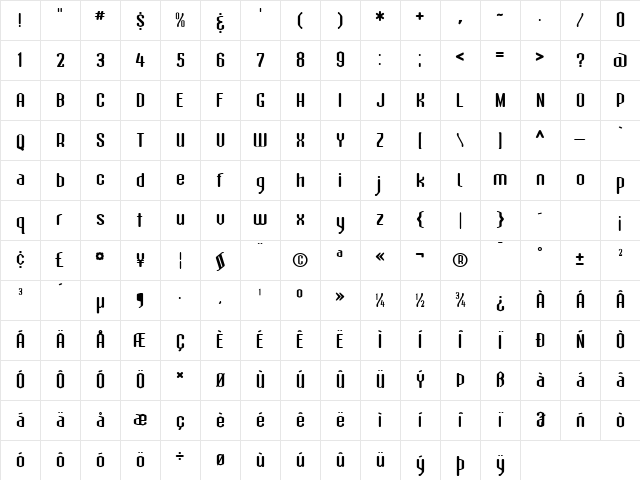
AtomicSansICG Bold
Design Context for AtomicSansICG
AtomicSansICG is a composed and adaptable typeface that performs quietly and consistently across a wide range of design contexts. Its bold stroke weight gives it real presence on the page.